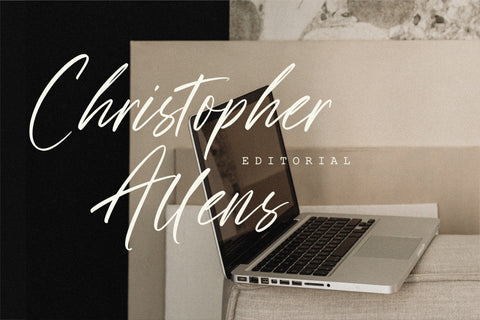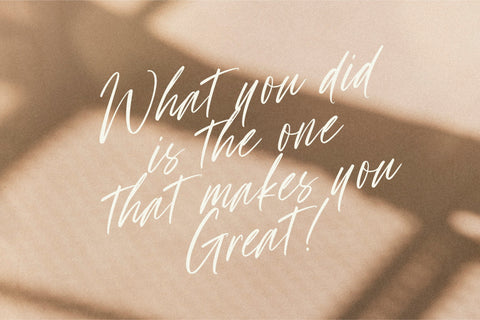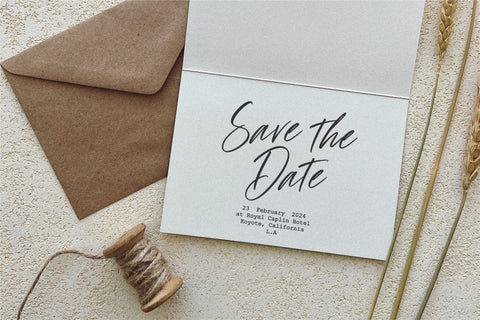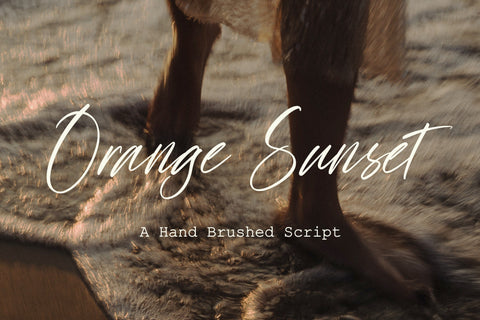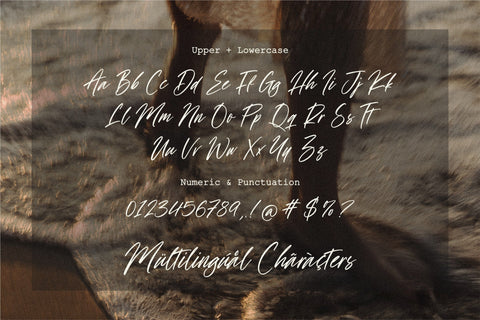
Orange Sunset Font
Orange Sunset is a Handbrushed Script Font that’s perfect for adding a touch to your design projects!
Crafted with care and attention to detail, this font is incredibly versatile and can be used for a range of design projects, including logos, branding, invitations, and more.
Its modern, handwritten style gives it a unique character that’s sure to make an impact.
Also multilingual support